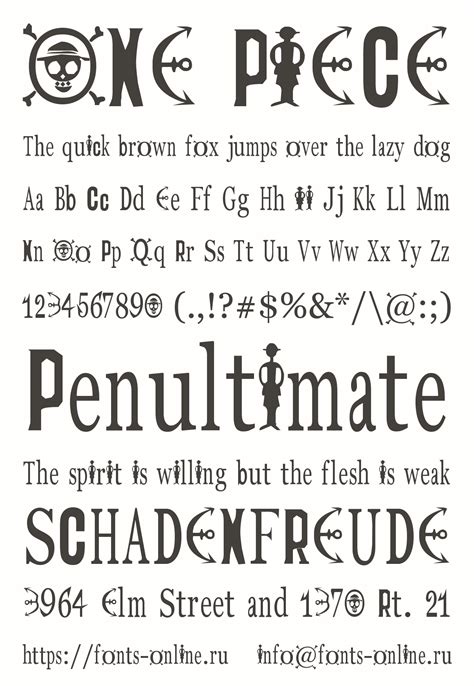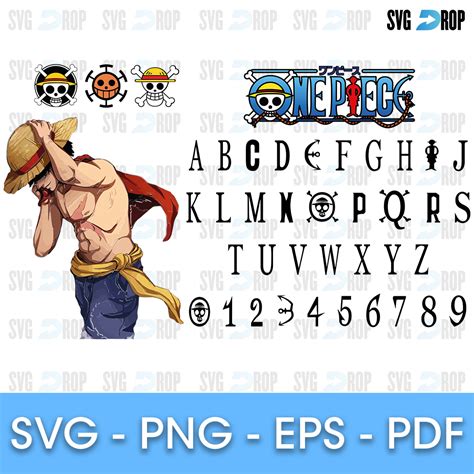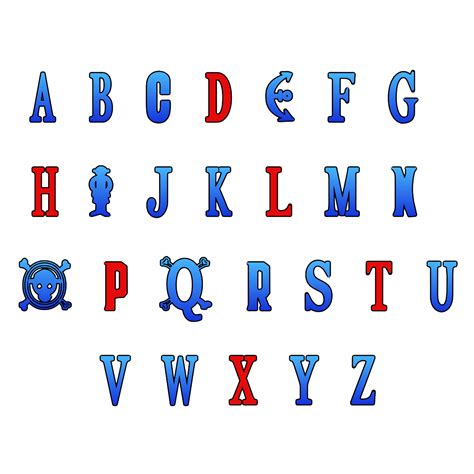
In the vast world of typography, finding the perfect font can be a daunting task. Whether you're designing a website, creating a logo, or crafting a document, the right font can make all the difference. One font that has gained significant attention is the Font One Piece. This font is inspired by the popular manga and anime series "One Piece," which has captivated audiences worldwide with its thrilling adventures and memorable characters. The Font One Piece captures the essence of this beloved series, making it a popular choice for fans and designers alike.
What is Font One Piece?
The Font One Piece is a typeface designed to emulate the distinctive style of the “One Piece” series. Created with a focus on capturing the spirit of the manga and anime, this font features bold, dynamic lettering that reflects the adventurous and energetic nature of the story. The font is often used in fan art, merchandise, and various creative projects to pay homage to the series.
Key Features of Font One Piece
The Font One Piece stands out due to several key features that make it unique and appealing:
- Bold and Dynamic Design: The font’s bold strokes and dynamic shapes give it a powerful and energetic feel, perfect for capturing the excitement of the “One Piece” universe.
- Distinctive Lettering: Each letter is carefully crafted to resemble the hand-drawn style of the manga, making it instantly recognizable to fans.
- Versatility: Despite its distinctive style, the font is versatile enough to be used in various projects, from digital designs to print media.
- Easy to Read: While it has a unique design, the font remains legible, ensuring that your message is clear and easy to understand.
Popular Uses of Font One Piece
The Font One Piece is incredibly versatile and can be used in a variety of projects. Here are some popular uses:
- Fan Art: Many fans use this font to create stunning fan art, posters, and digital illustrations inspired by the “One Piece” series.
- Merchandise: The font is often used on merchandise such as t-shirts, mugs, and phone cases, making it a favorite among fans and collectors.
- Social Media Graphics: Designers use the font to create eye-catching graphics for social media posts, profiles, and banners.
- Website Design: Incorporating the Font One Piece into website design can add a unique and memorable touch, especially for fan sites or blogs dedicated to the series.
- Print Media: The font can also be used in print media, such as flyers, posters, and brochures, to create a bold and dynamic look.
Comparing Font One Piece with Other Popular Fonts
To understand the uniqueness of the Font One Piece, it’s helpful to compare it with other popular fonts. Here’s a table highlighting some key differences:
| Font Name | Style | Use Cases | Distinctive Features |
|---|---|---|---|
| Font One Piece | Bold, Dynamic | Fan Art, Merchandise, Social Media Graphics | Hand-drawn style, energetic feel |
| Comic Sans | Casual, Playful | Informal Documents, Children's Books | Handwritten style, easy to read |
| Impact | Bold, Strong | Headlines, Posters, Memes | Thick strokes, high contrast |
| Arial | Clean, Modern | Websites, Documents, Presentations | Versatile, widely used |
Tips for Effective Use of Font One Piece
To make the most of the Font One Piece, consider the following tips:
- Pair with Complementary Fonts: While the Font One Piece is bold and dynamic, pairing it with a more subdued font can create a balanced design. For example, use it for headlines and a simpler font for body text.
- Use Appropriate Sizes: The font’s bold design works best at larger sizes. Avoid using it for small text, as it may become difficult to read.
- Experiment with Colors: The Font One Piece can be enhanced with vibrant colors. Experiment with different color schemes to make your design stand out.
- Keep It Simple: While the font is eye-catching, avoid overusing it. Keep your design simple and let the font be the focal point.